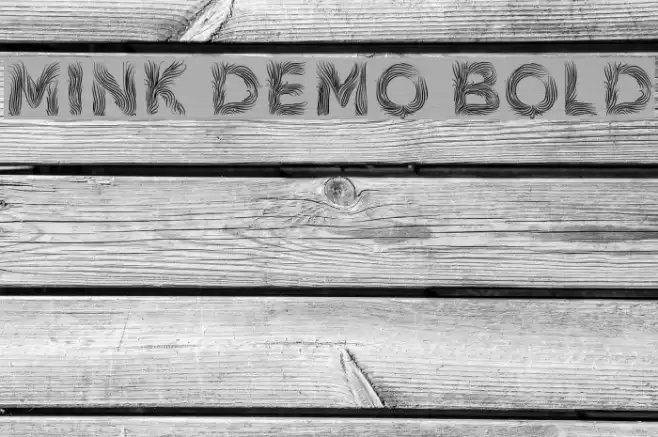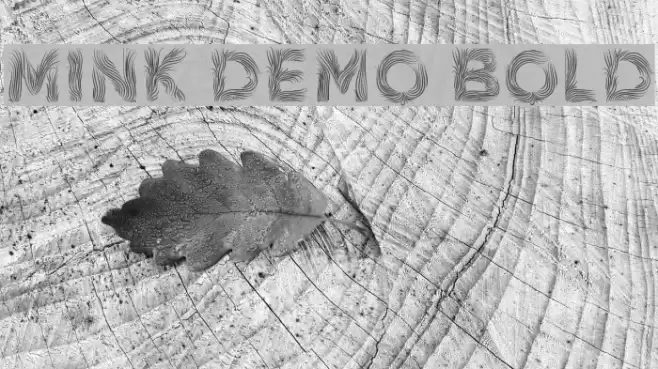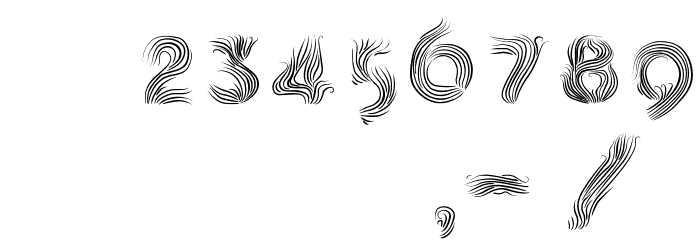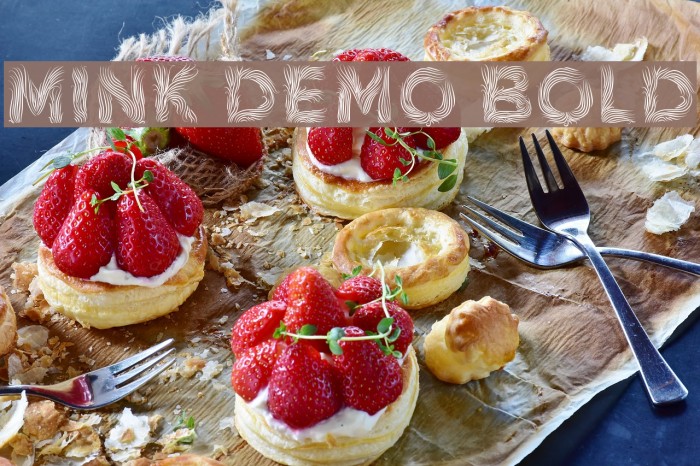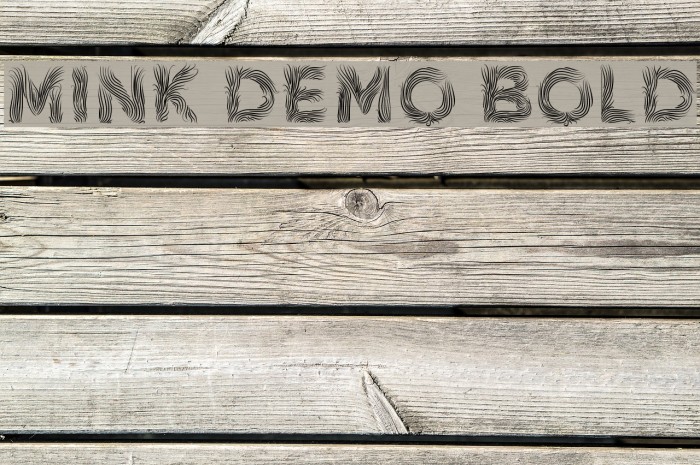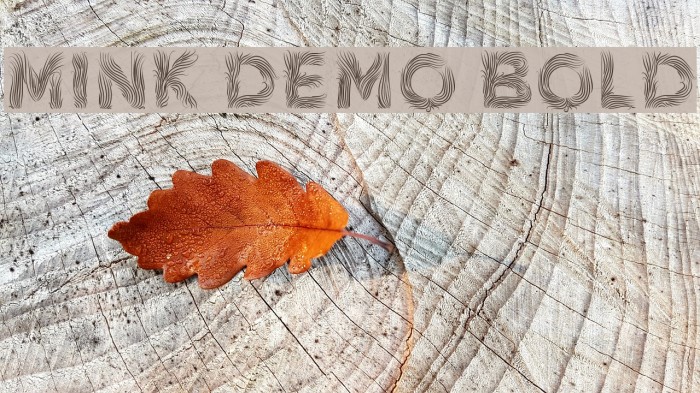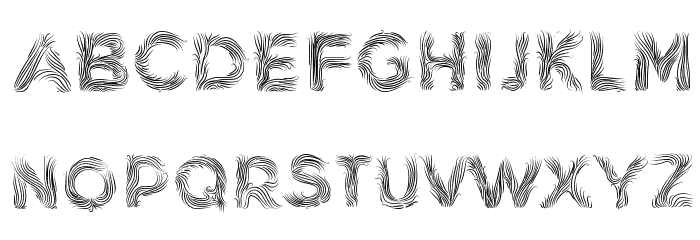
Mink Demo Bold Font
Mink Demo Bold Description
This font features a unique and artistic design, characterized by swirling, intricate line patterns that form each letter and number. The lines create a sense of movement and texture, giving the font a dynamic and eye-catching appearance. The characters are bold and prominent, making them suitable for attention-grabbing designs. The font's decorative style is ideal for creative projects that require a distinctive and artistic touch. The swirling lines vary in thickness, adding depth and complexity to the overall look. This font is perfect for projects that aim to stand out and make a visual impact.
An artistic font with swirling, intricate line patterns creating a dynamic look from Decorative fonts.
- Proposed Projects: Ideal for posters, album covers, artistic branding, and creative invitations.